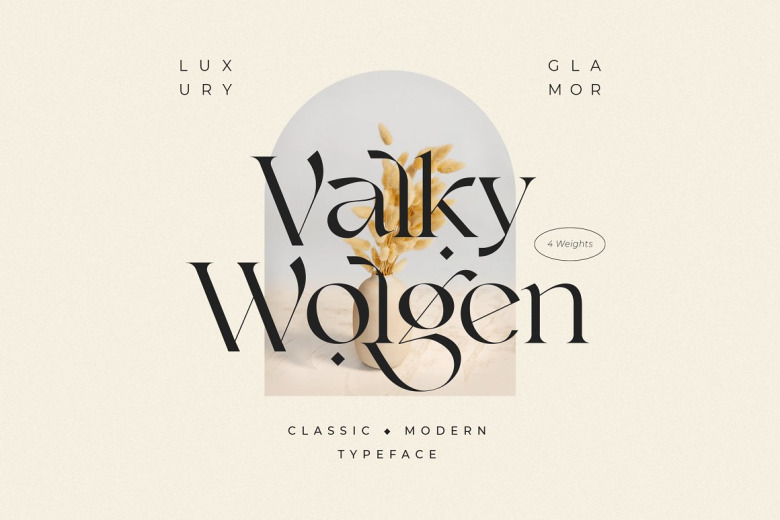
Valky Classic Modern Typeface
Valky is Fancy Modern vintage serif typeface was inspired by the popular minimalist logo design style. Special add-ons unique stylistic alternate with special ligatures. includes multilingual characters It is perfect for traditional design, such as manufacturers, merk branding, product packaging, magazine headers, or merely a stylish text overlay on any background image.
Valky Classic Modern Serif Typeface